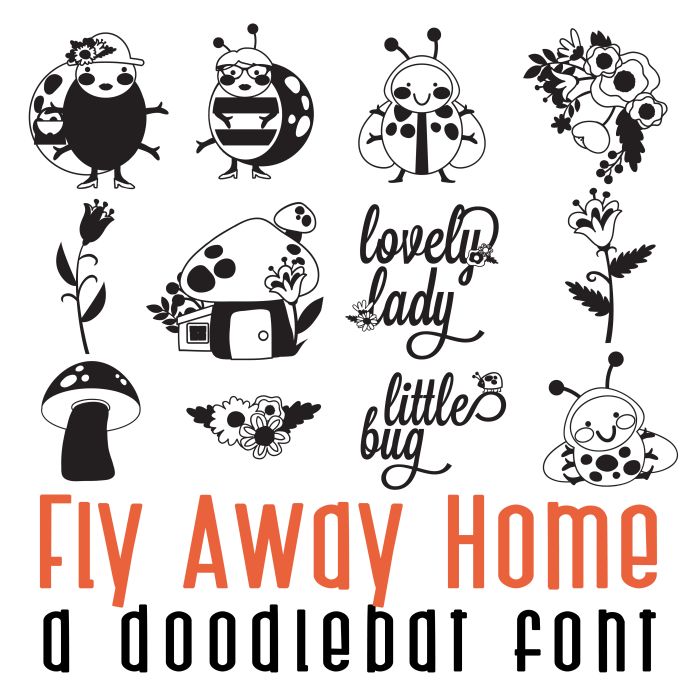
This fun doodlebat font features 26 adorable lady bugs, bees and florals. Perfect for cards, crafts, gifts, decor, scrap book pages, planner stickers and more!